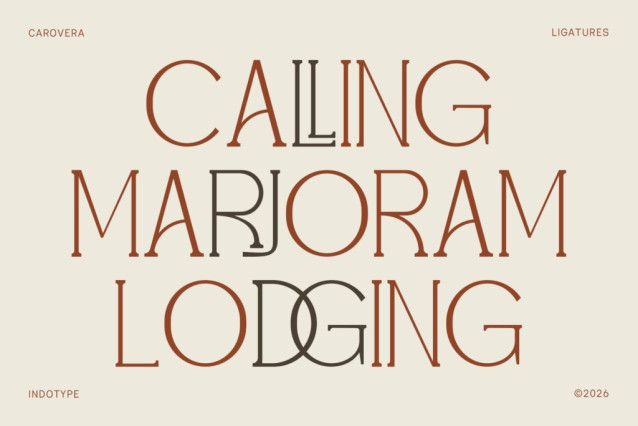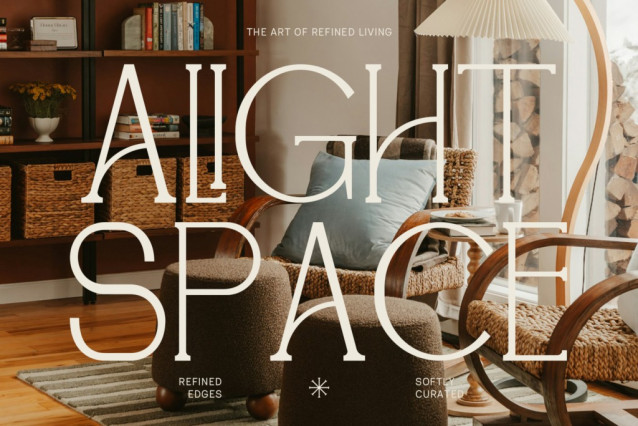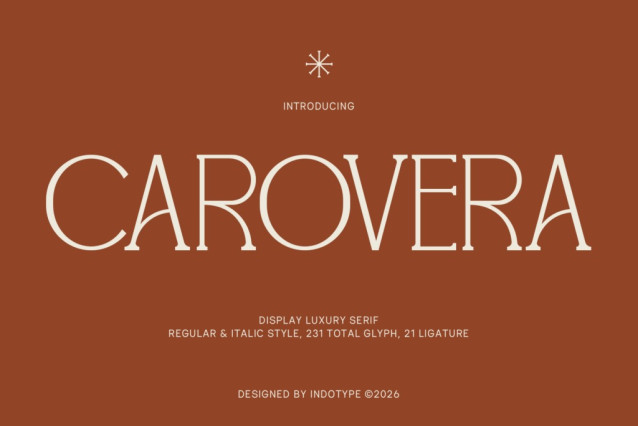
It Carovera Font
It Carovera Font is a display luxury serif typeface of rare poise and refinement. Designed by Indotype, Carovera occupies the elevated space where classical serif tradition meets the restrained sophistication of contemporary luxury design. Its letterforms are wide, open, and breathtakingly light — built on a thin stroke structure that gives the typeface an almost architectural transparency, as if each letter were drawn in negative space rather than ink. This is type designed to breathe, to pause, and to leave a lasting impression long after it has been read.